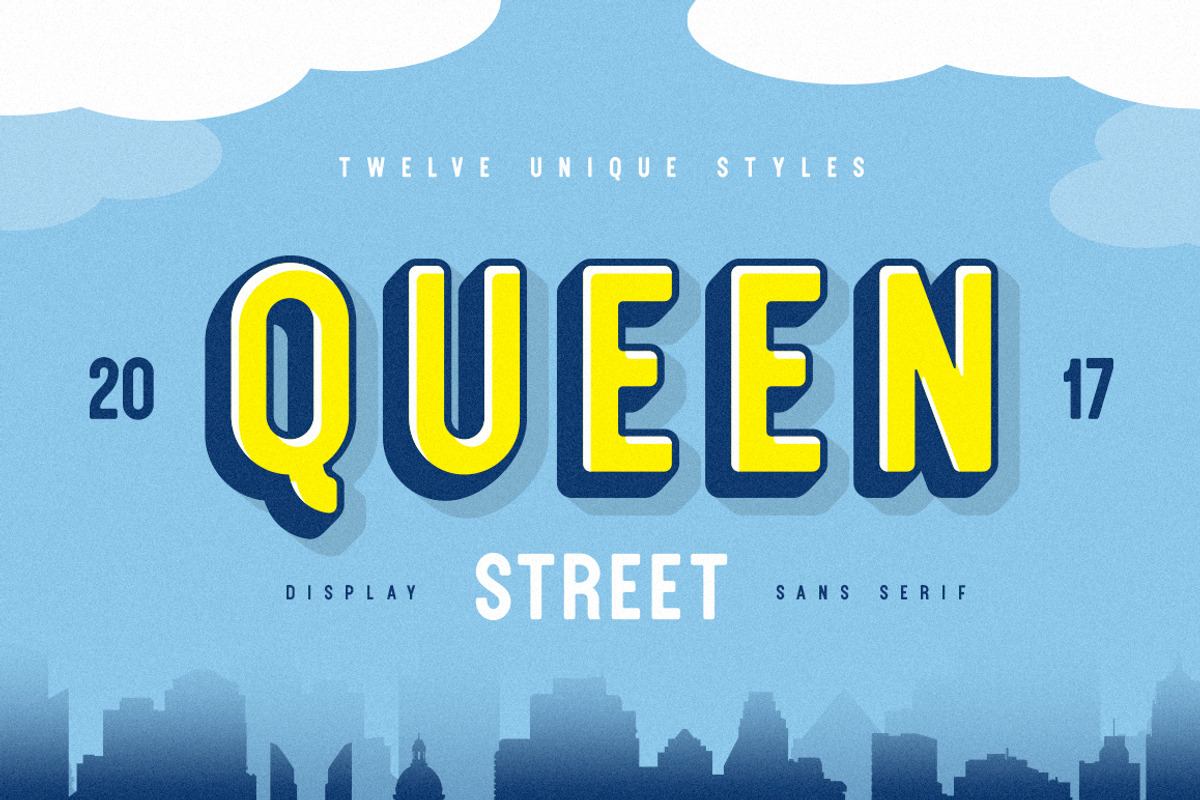
Queen Street Display Font Free Download
Queen Street Display Font Free Download is an elegant and bold display typeface designed to capture attention with its stylish curves and sophisticated letterforms. Perfect for high-end branding, fashion-related projects, editorial layouts, posters, and social media graphics, this font offers a refined, classic look with a modern edge.
With its strong presence and readable style, Queen Street is ideal for projects that want to make a statement while maintaining a sense of elegance. Whether you’re designing for a luxury brand, an event, or creating bold headlines, this font adds a touch of class and charm to your typography.
Elevate your designs with Queen Street Display Font Free Download, and bring sophistication and style to your creative work. Perfect for designers who want a classic yet bold font that makes an impact.